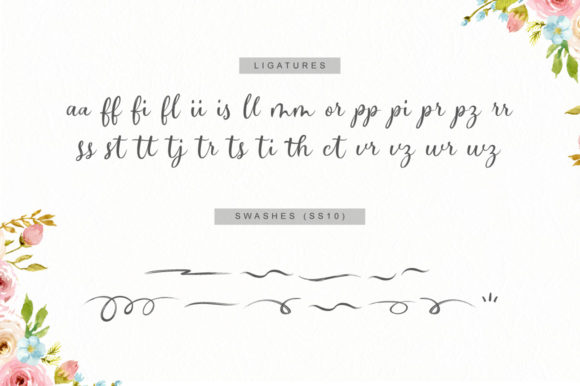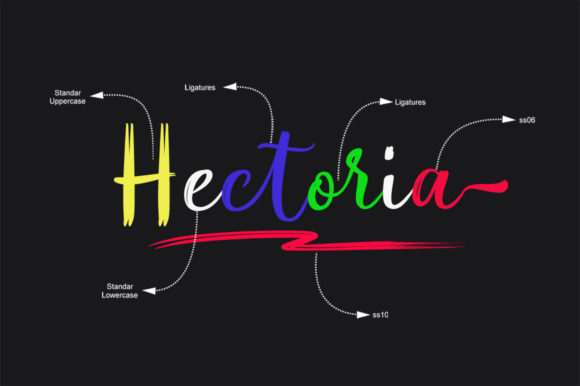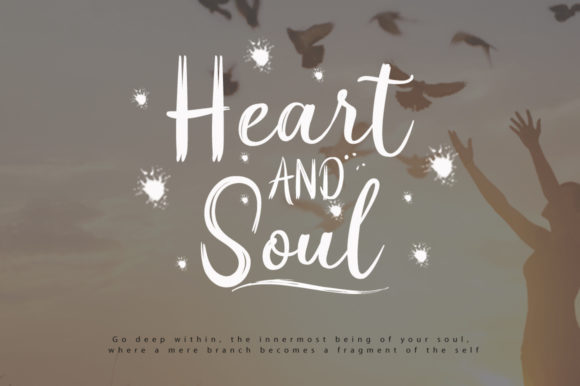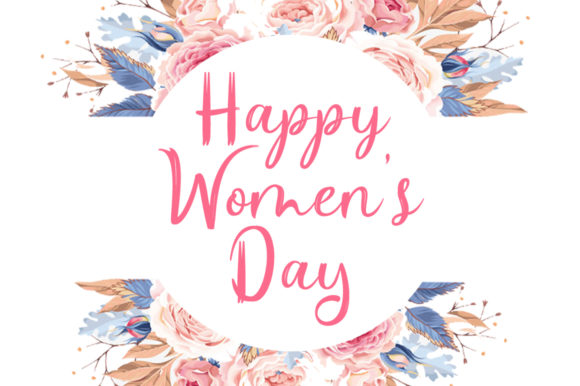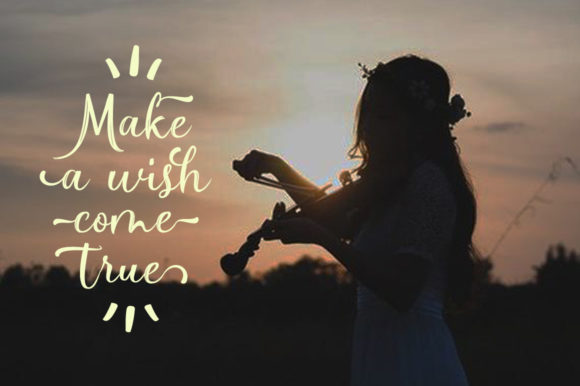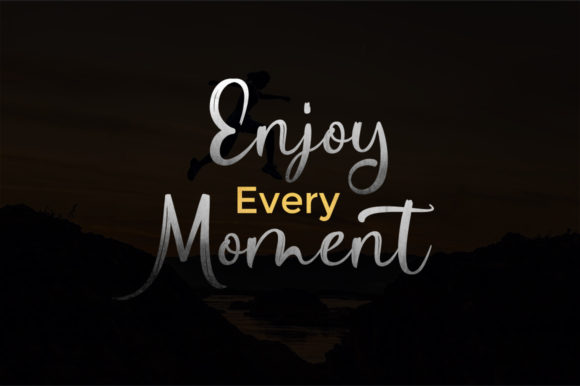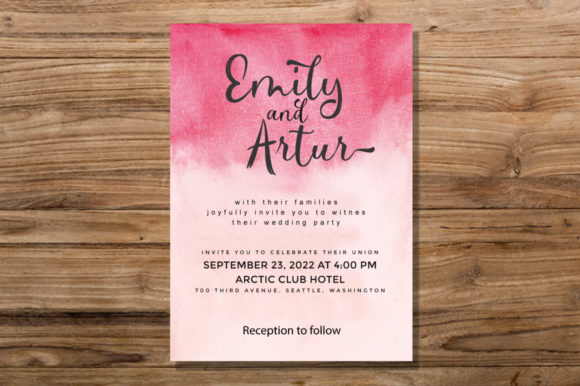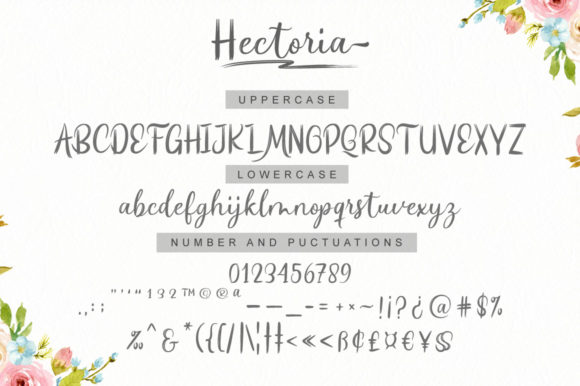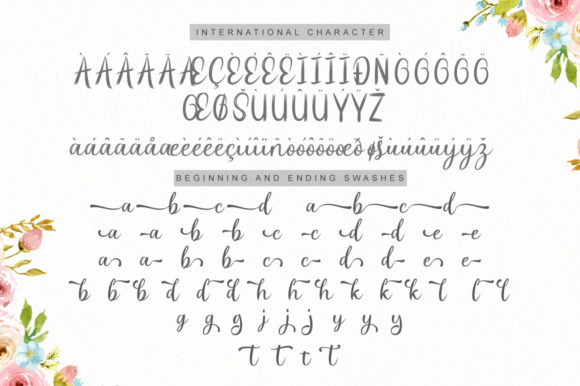
HomeScript FontsHectoria Script Font Script Fonts Hectoria Script Font FacebookXPinterestWhatsApp Hectoria Script Font Poster 2 Hectoria Script Font Poster 3 Hectoria Script Font Poster 4 Hectoria Script Font Poster 5 Hectoria Script Font Poster 6 Hectoria Script Font Poster 7 Hectoria Script Font Poster 8 Hectoria Script Font Poster 9 Hectoria Script Font Poster 10 About Hectoria Script Font Hectoria Script is inspired by handwritten typography fonts. Get inspired by its exciting look & feel! DOWNLOAD NOW People also explored Gatta Dimuntaffa Font Escape Font Rockwild Font Smartline Font Galileo Font Splatter Font Munjaa Melaney Font Hello Holiday Font 292 0 TagsHectoria Script Font Previous articleHillary Diary FontNext articleKinantey Font LEAVE A REPLY Cancel reply Comment: Please enter your comment! Name:* Please enter your name here Email:* You have entered an incorrect email address! Please enter your email address here Website: Save my name, email, and website in this browser for the next time I comment. Personal Use Free Sheiloria Personal Use Free Read more about this font Sunbright Font Personal Use Free Read more about this font Hallo Betty Personal Use Free Read more about this font Over the Top Personal Use Free Read more about this font BLOG How to Cut Any Font on Cricut: Convert a Font to SVG (Free) Turn any font into a clean SVG so it cuts crisp on Cricut - a quick 3-step workflow using a free font-to-SVG tool. Best Fonts for T-Shirt Design – Top 2025 Picks Transform Your Website: Elevate Your Typography with 7 Best Web Font Generators Free vs Paid Fonts: Why Investing in Premium Fonts Is Worth It